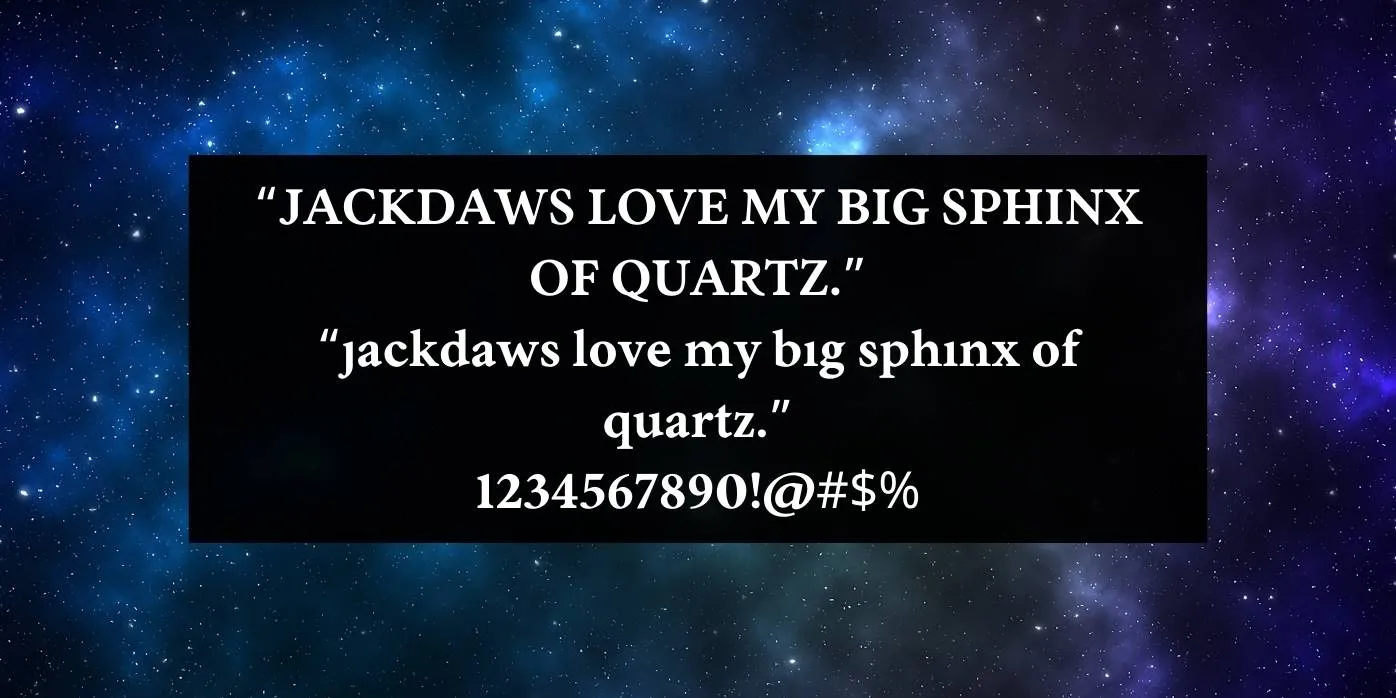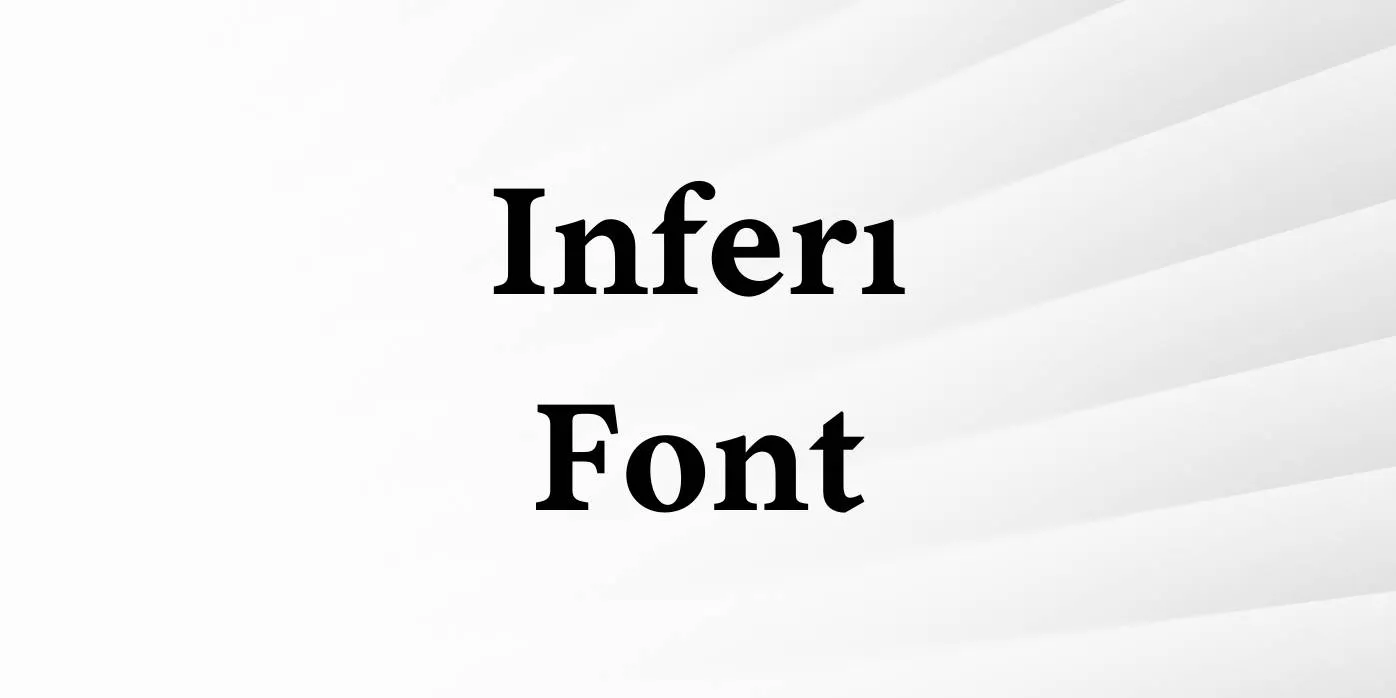
Inferi Font
Inferi Font is a serif typeface that was created by Vincent Connare in 1996. It is a serif font that is meant to be used for headlines and other large text. The font is named after the Latin word for “dead”, which is fitting given its spooky, Halloween-esque appearance. This font was inspired by the movie “The Nightmare Before Christmas”.
Vincent Connare was watching the movie and noticed that the text on the screen was hard to read. He decided to create a font that would be more legible and also fit with the movie’s dark, gothic aesthetic. It is a popular choice for haunted house-themed attractions and Halloween decorations. You can also utilize the typeface in your display designs and pair it with other typefaces like sketch 3d font which is much similar to this and has a pairing personality.